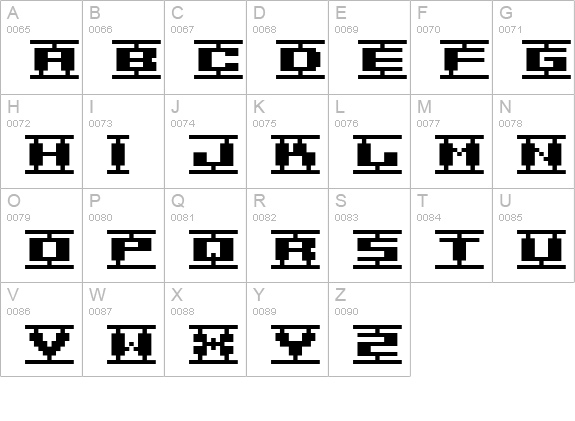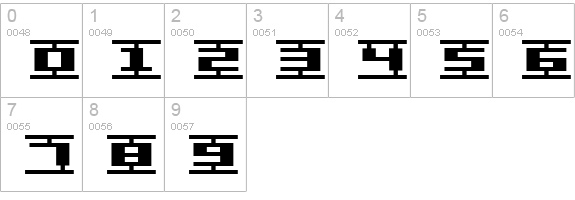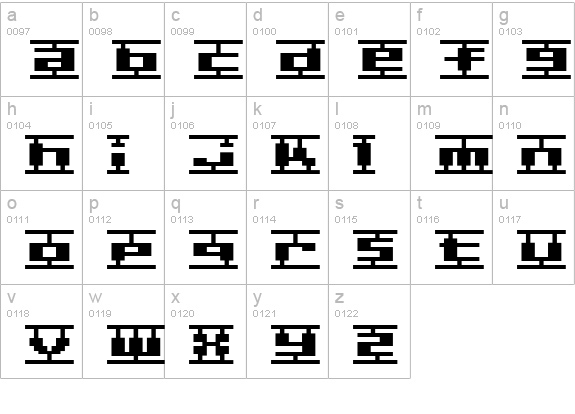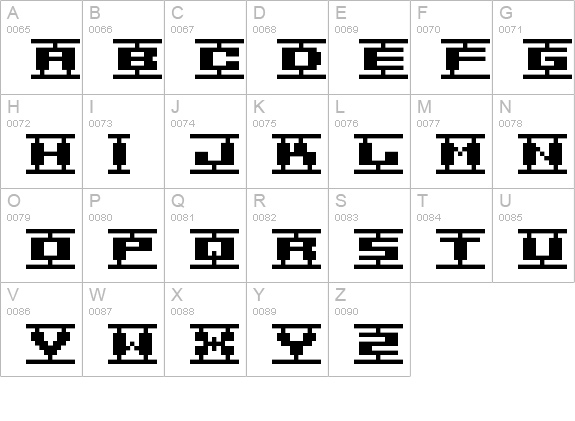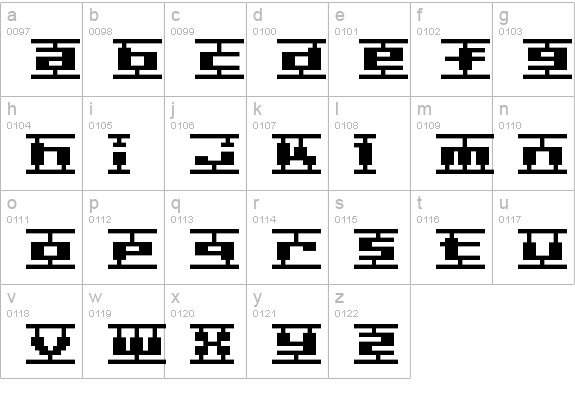
BM plamo A9 Font Details
The BM plamo A9 font is a stunning and modern typeface that exudes elegance and sophistication. Its sleek lines and sharp edges make it perfect for a variety of design projects, from branding to editorial layouts. This versatile font is available in a range of weights and styles, allowing you to easily customize your text to suit your needs. What makes BM plamo A9 font even more appealing is that it is completely free to download. Yes, you read that right - this high-quality font is freely available at FontsMarket.com, making it accessible to designers and creatives of all levels. So go ahead and elevate your designs with the BM plamo A9 font today!